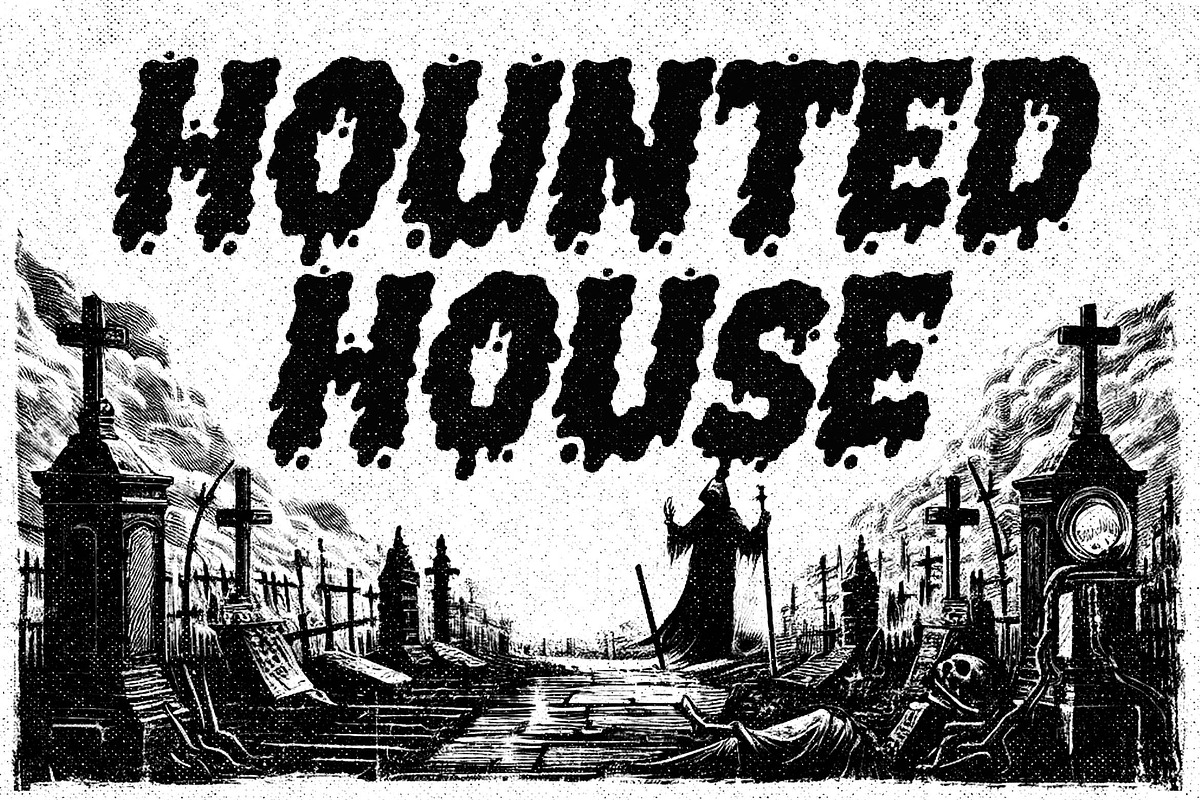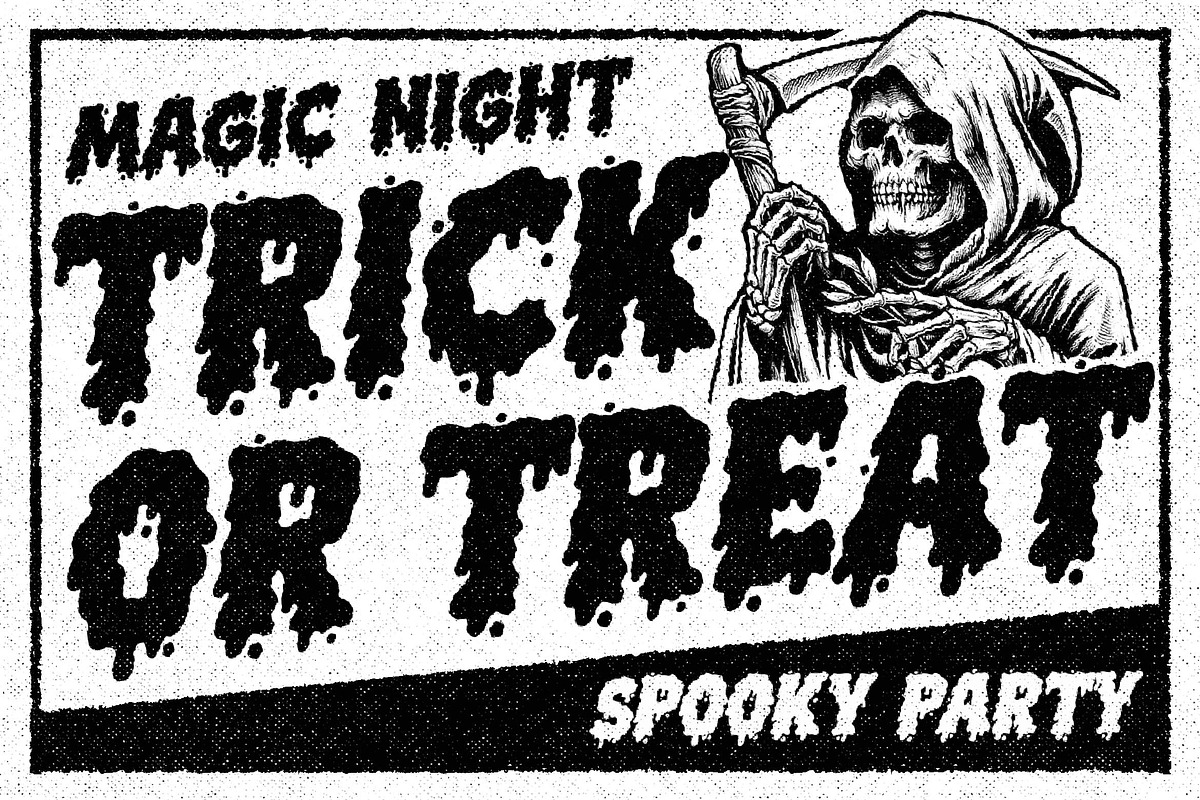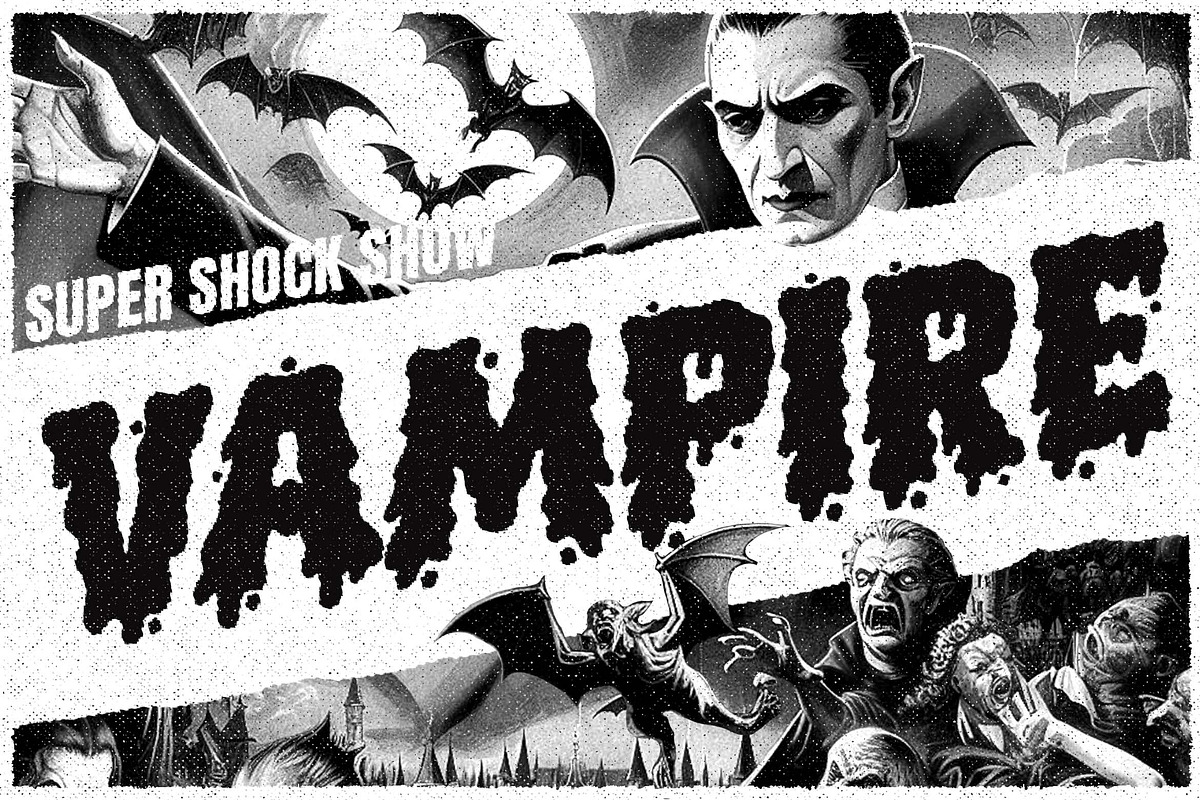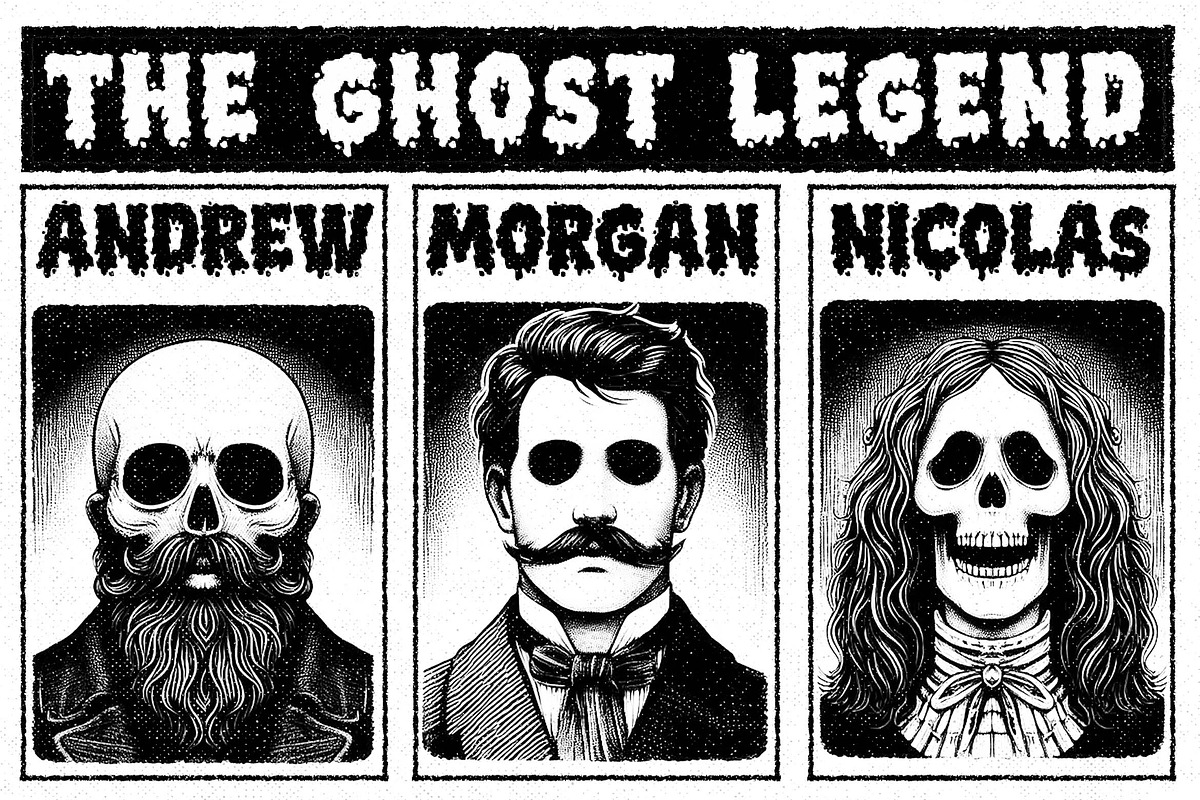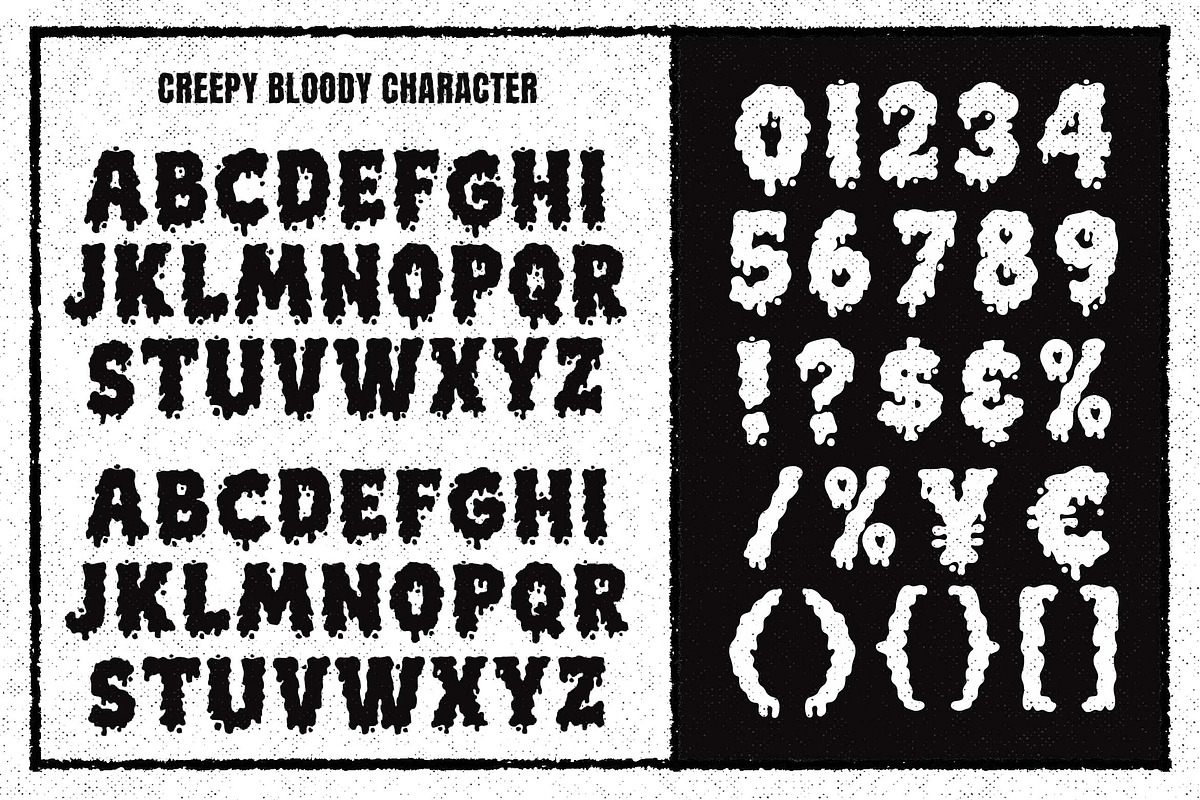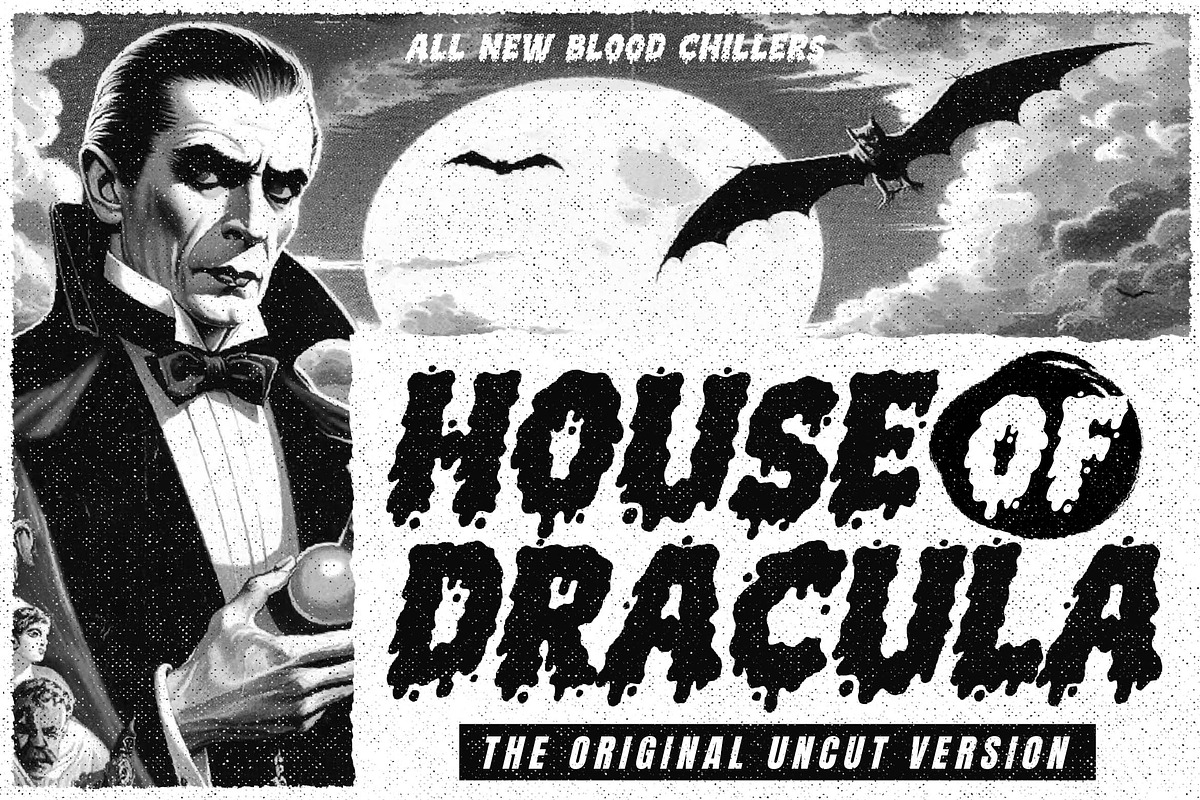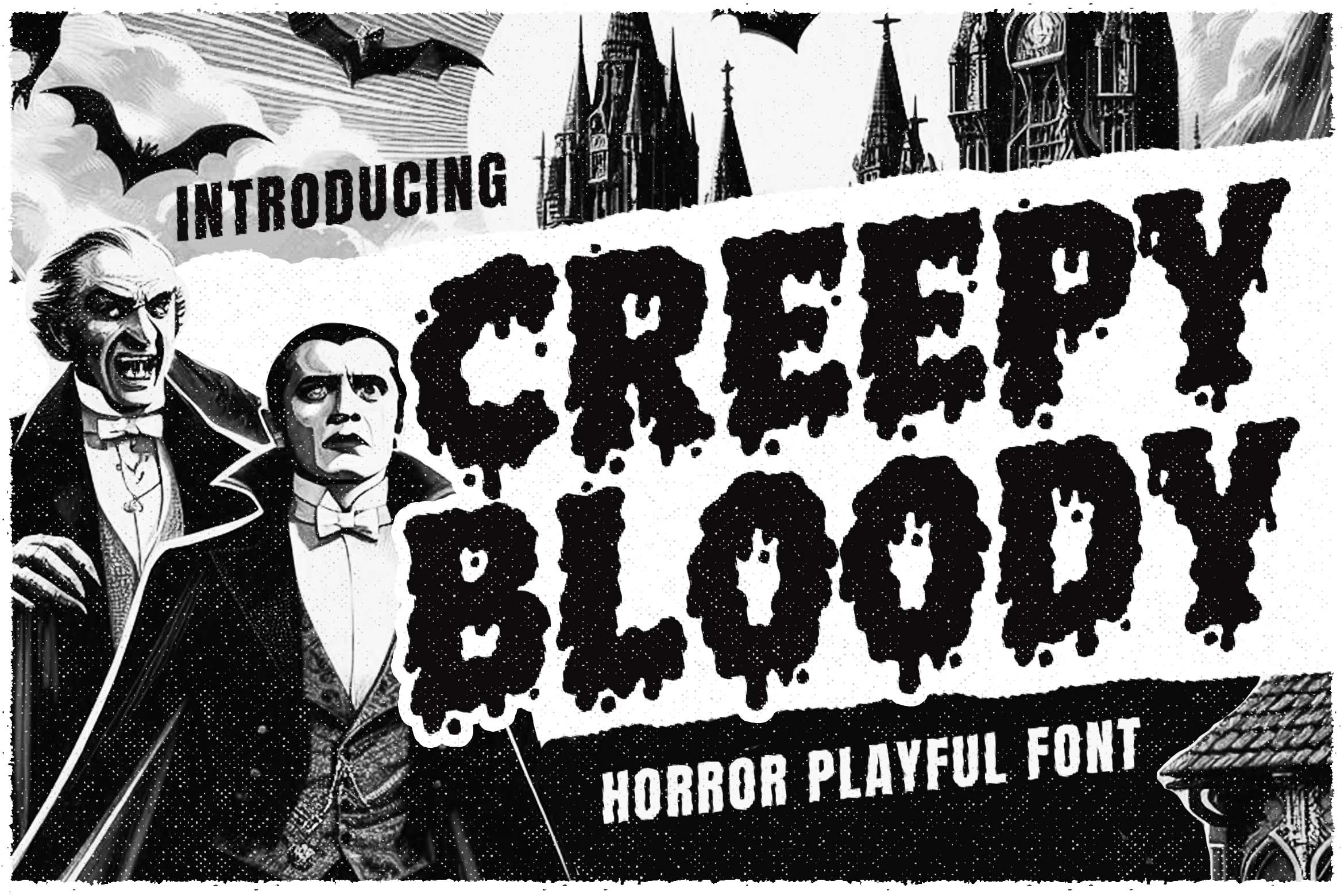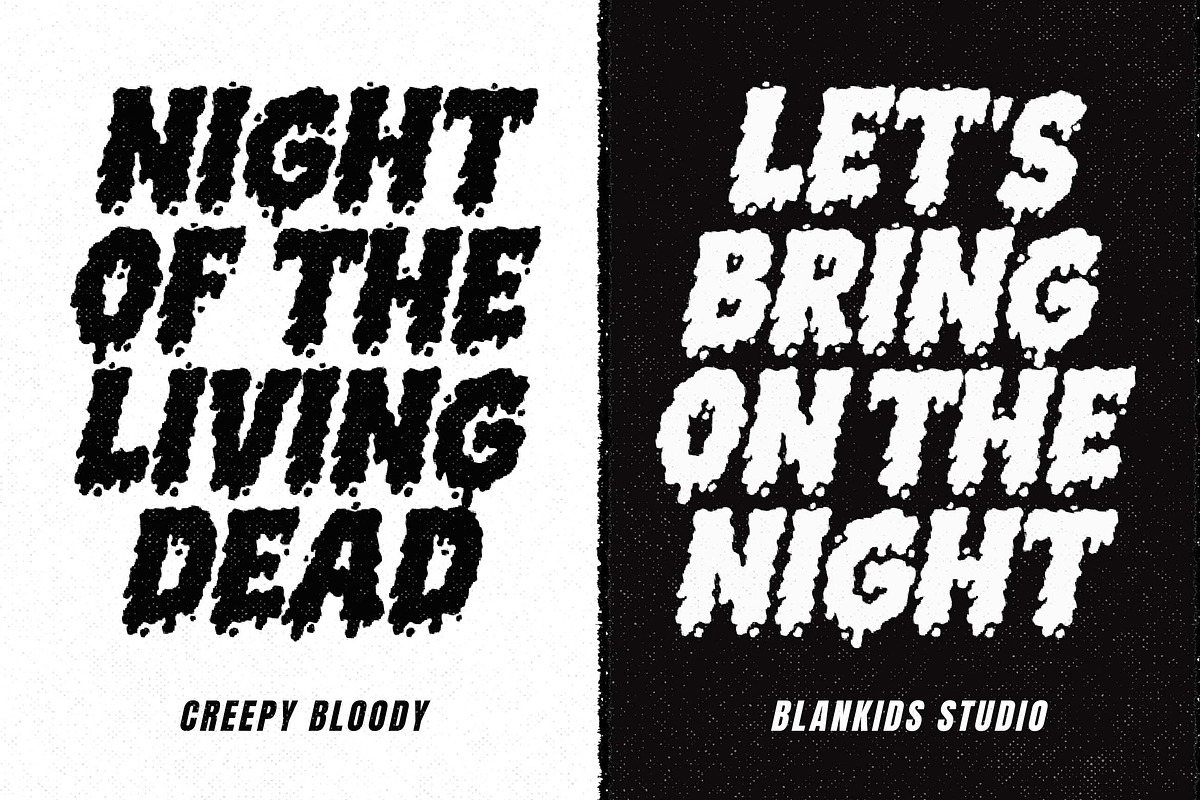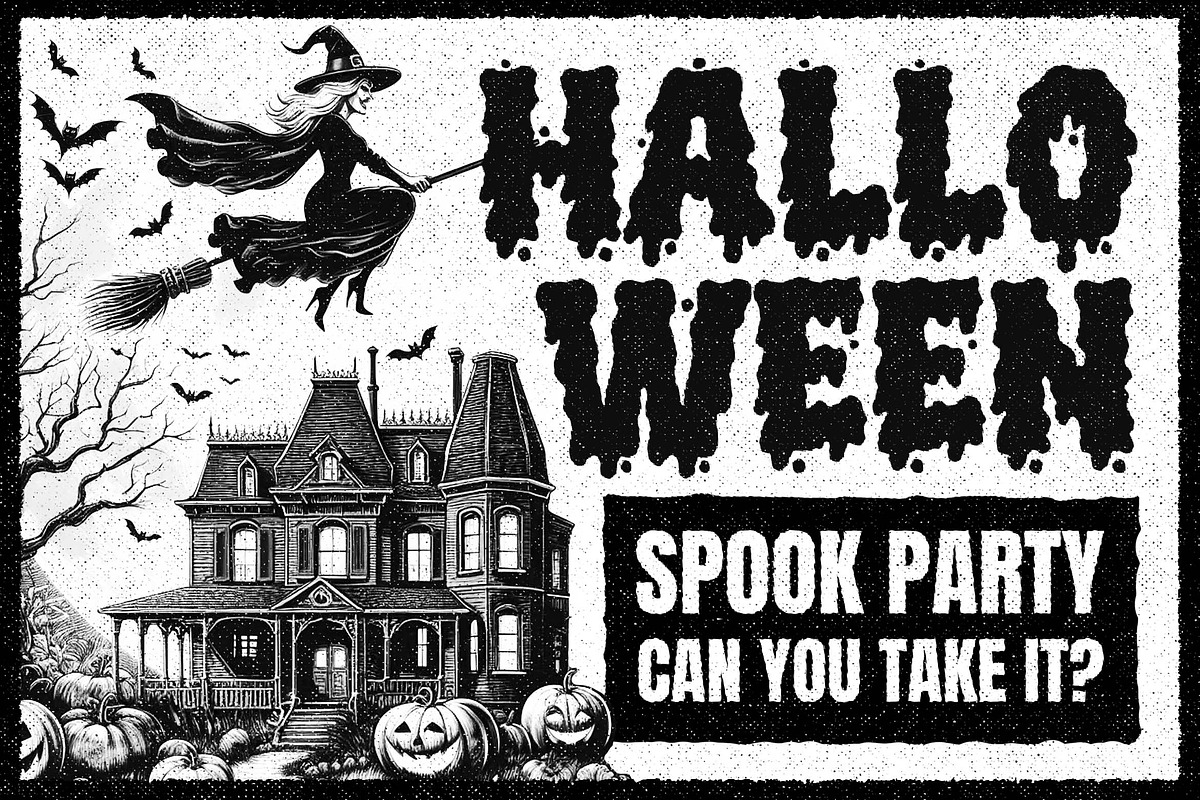
Creepy Bloody a Playful Horror Font
Creepy Bloody , a playful Horror font is made for any professional project branding, such as logotype, watermarks, poster, branding, promotions, product packaging, etc. Every letter has a playful and horror style design. This font comes in 2 font styles regular and slant.
Creepy Bloody font includes a full set of horror uppercase and lowercase letters, numerals and punctuation. This font has a playful horror style. See the previews above to get some inspiration on how to use them. Happy designing!